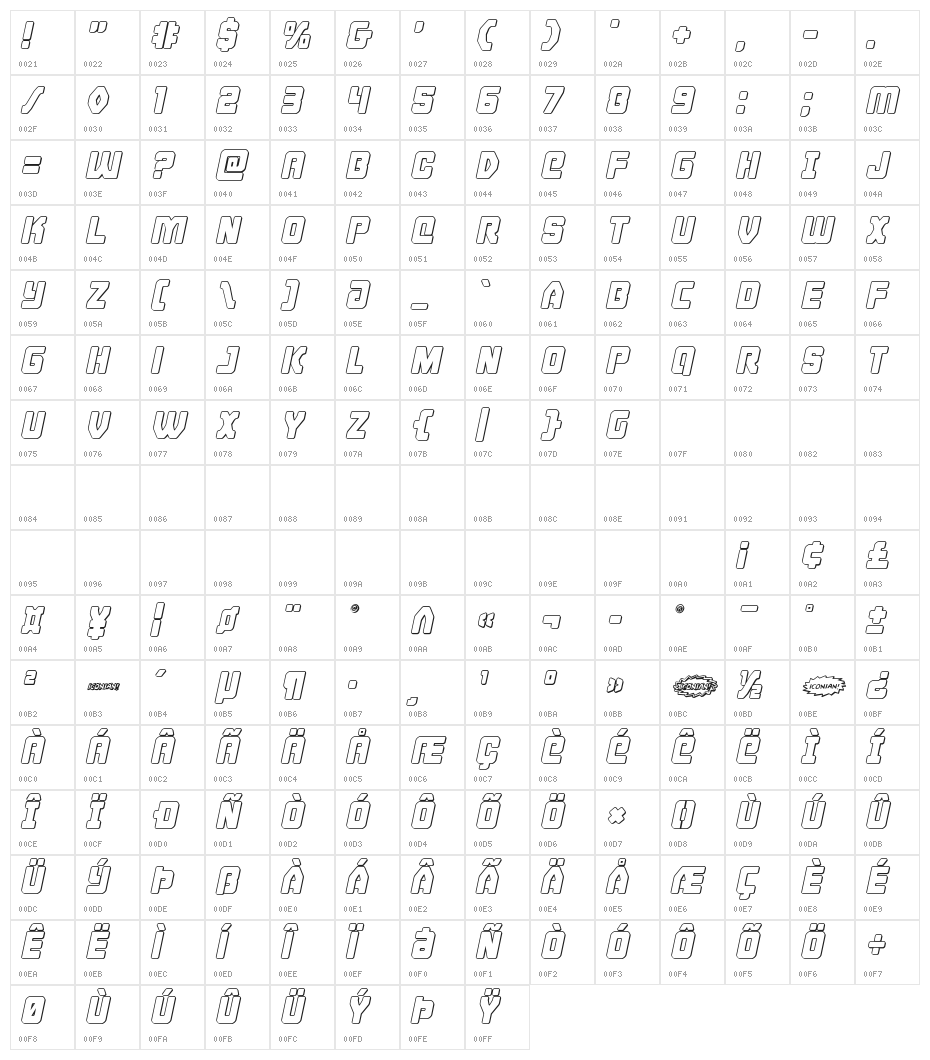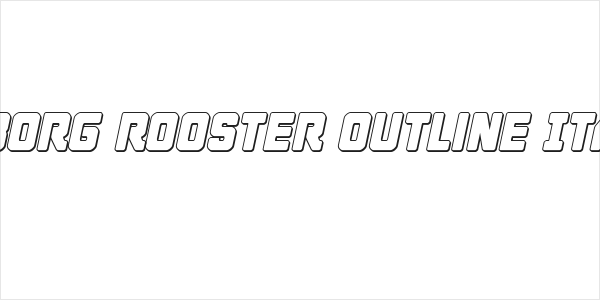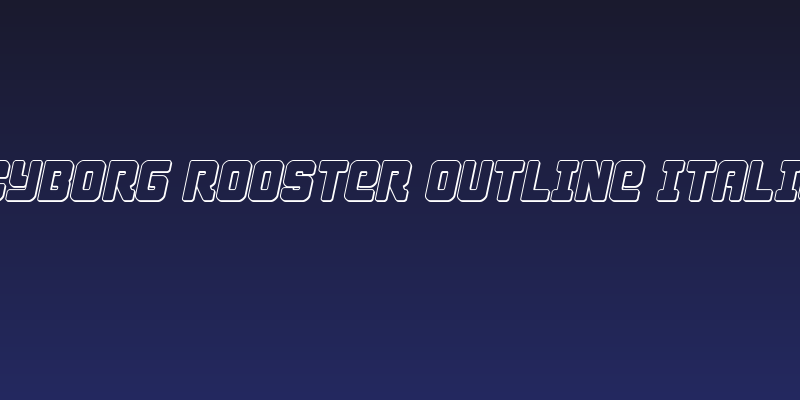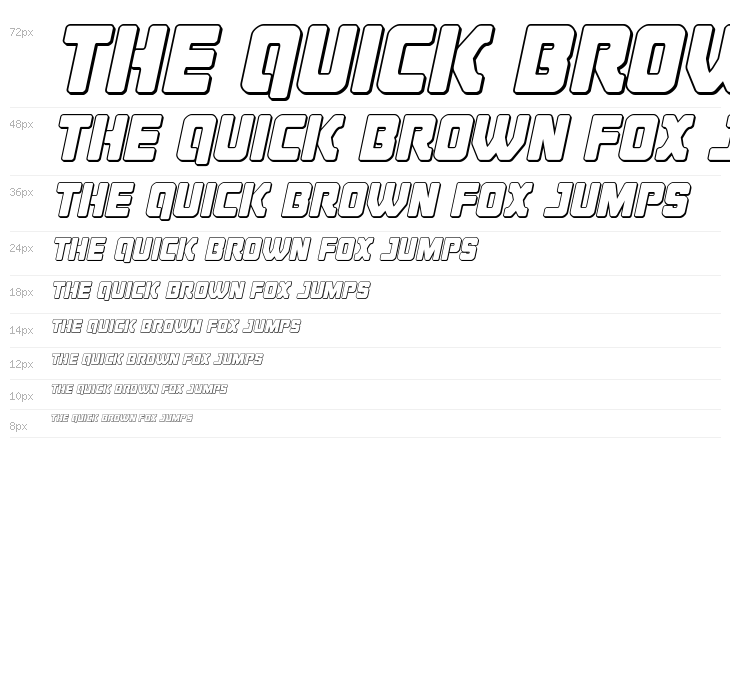
Cyborg Rooster Outline Italic Font
Cyborg Rooster Outline Italic Description
This font features a futuristic, geometric design with bold outlines and a distinct italic slant. The characters are constructed with sharp angles and clean lines, giving it a modern and tech-inspired appearance. The outline style adds a unique dimension, making it stand out in digital and print media. The uppercase and lowercase letters maintain a consistent style, with numerals and special characters following the same design principles. This font is ideal for projects that require a bold, eye-catching look with a touch of modernity.